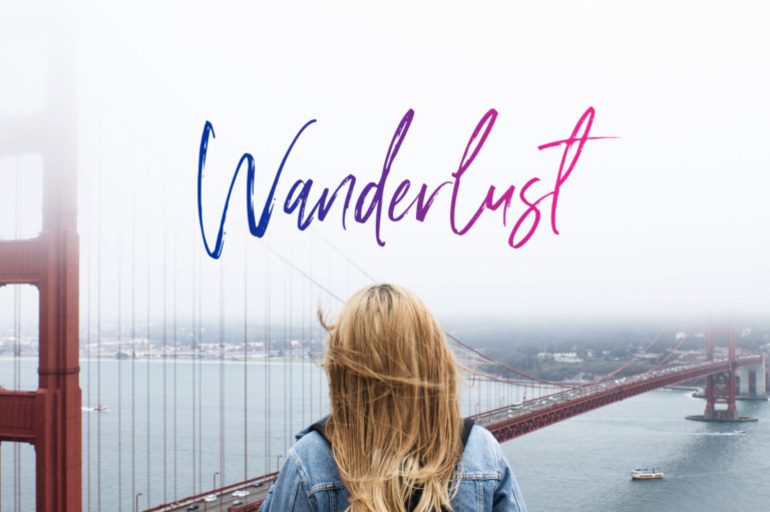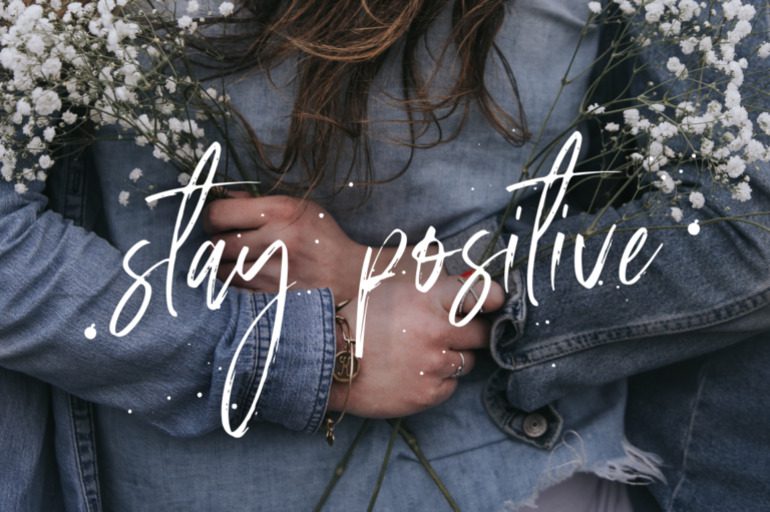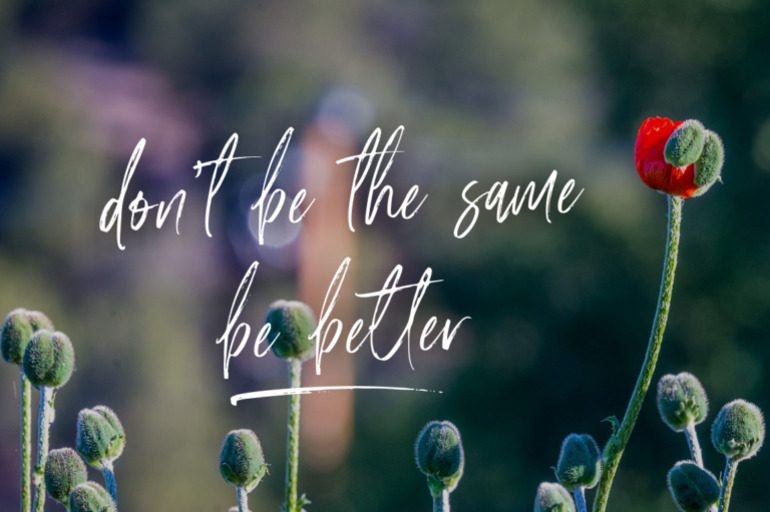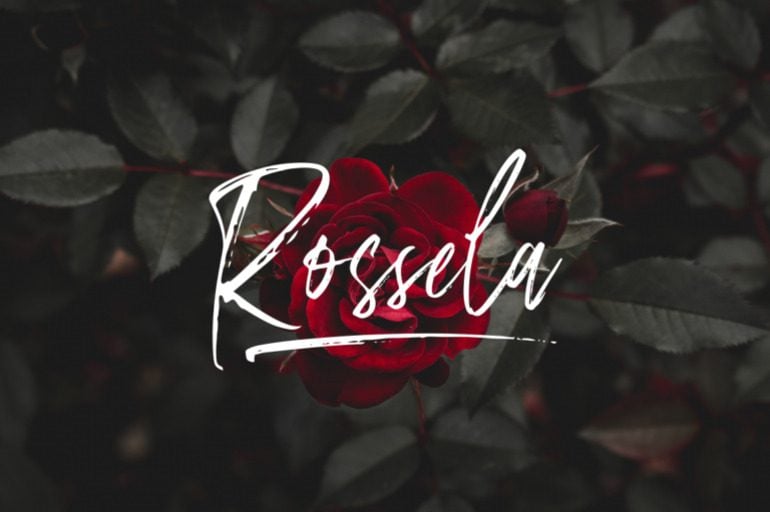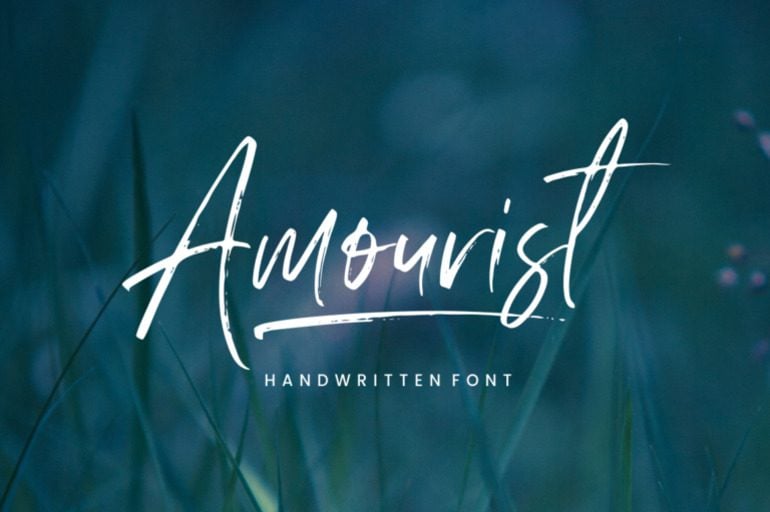
Amourist Font
Amourist, a romantic and elegant font inspired by the beauty of love. With its delicate curves and flowing lines, Amourist adds a touch of sophistication to any project. Perfect for branding, wedding invitations, and romantic designs. Let the enchantment of Amourist inspire your creativity.